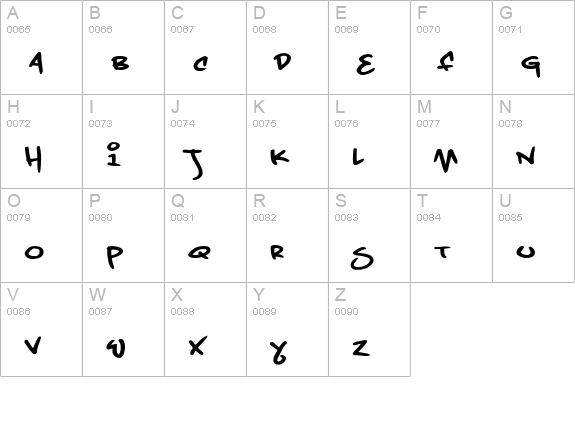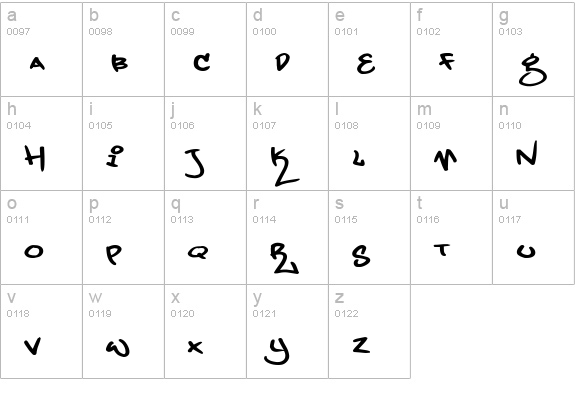
Grand Stylus Font Details
Introducing Grand Stylus font, a modern and elegant typeface that exudes sophistication and style. With its sleek lines and graceful curves, Grand Stylus is the perfect choice for projects that require a touch of class and refinement. Its versatility makes it suitable for a wide range of design applications, from branding and packaging to editorial and web design. What sets Grand Stylus font apart is its seamless blend of classic and contemporary elements, creating a timeless look that is both captivating and distinctive. Whether used for headlines, body text, or as a standout display font, Grand Stylus commands attention and leaves a lasting impression. Best of all, Grand Stylus font is available for free download exclusively at FontsMarket.com, making it easily accessible to designers and creatives looking to elevate their projects with a touch of sophistication. Don't miss out on this opportunity to add Grand Stylus to your font collection and bring your designs to the next level.